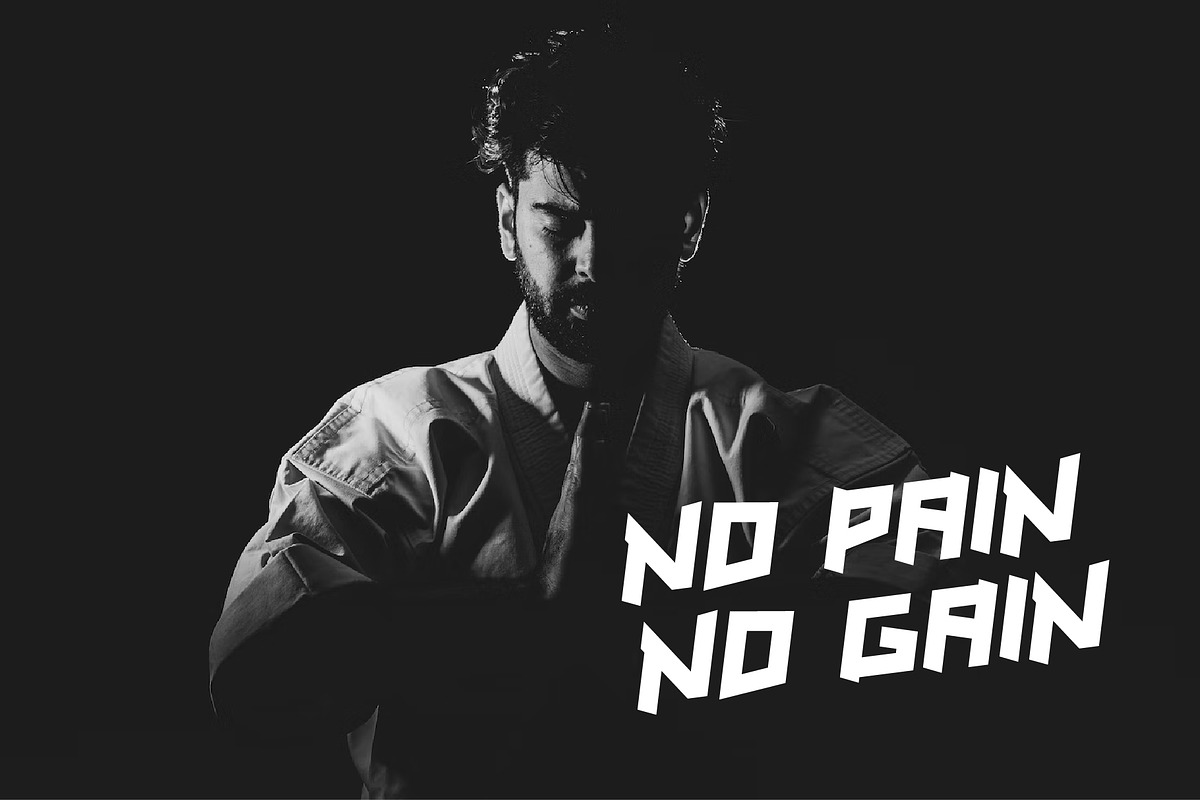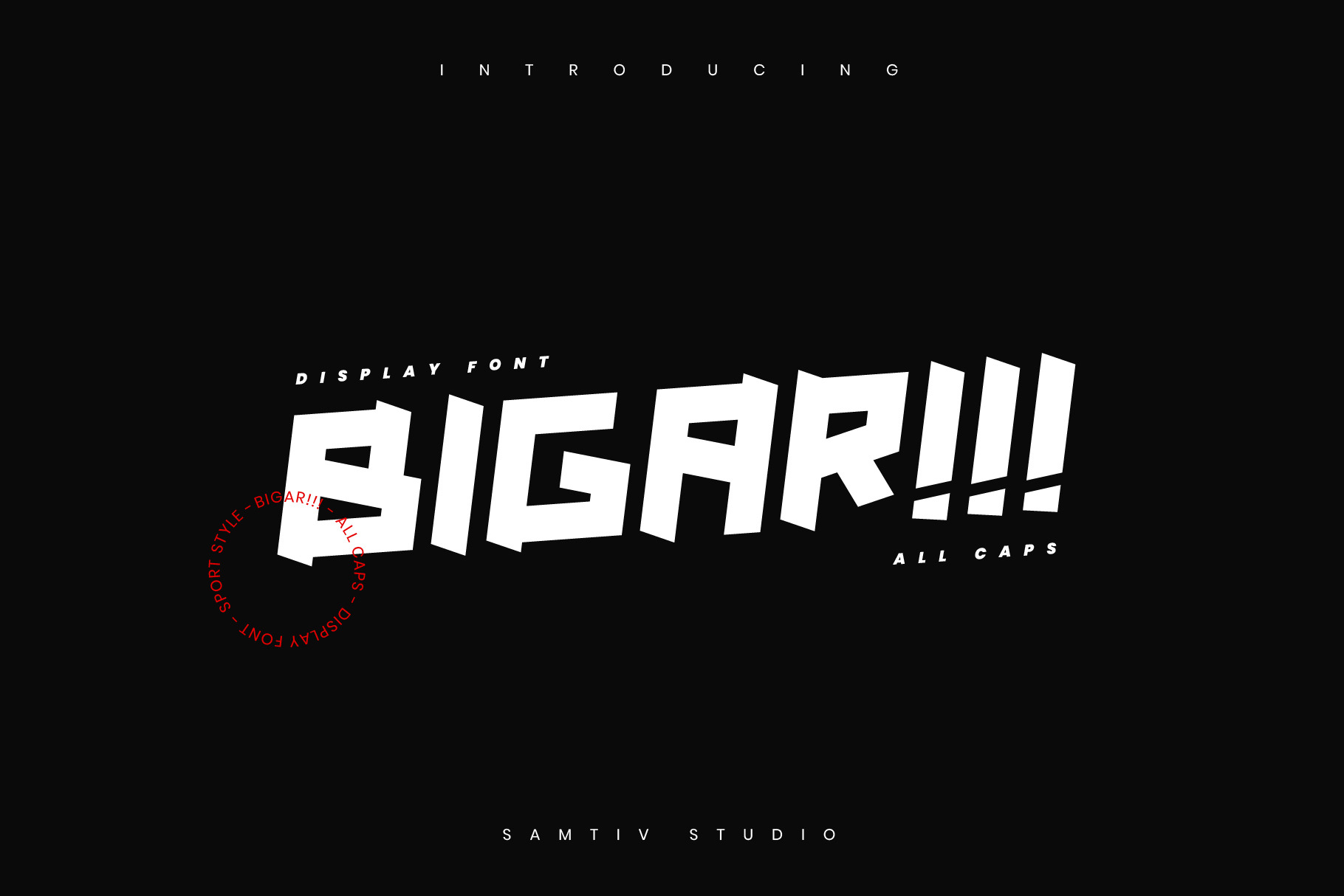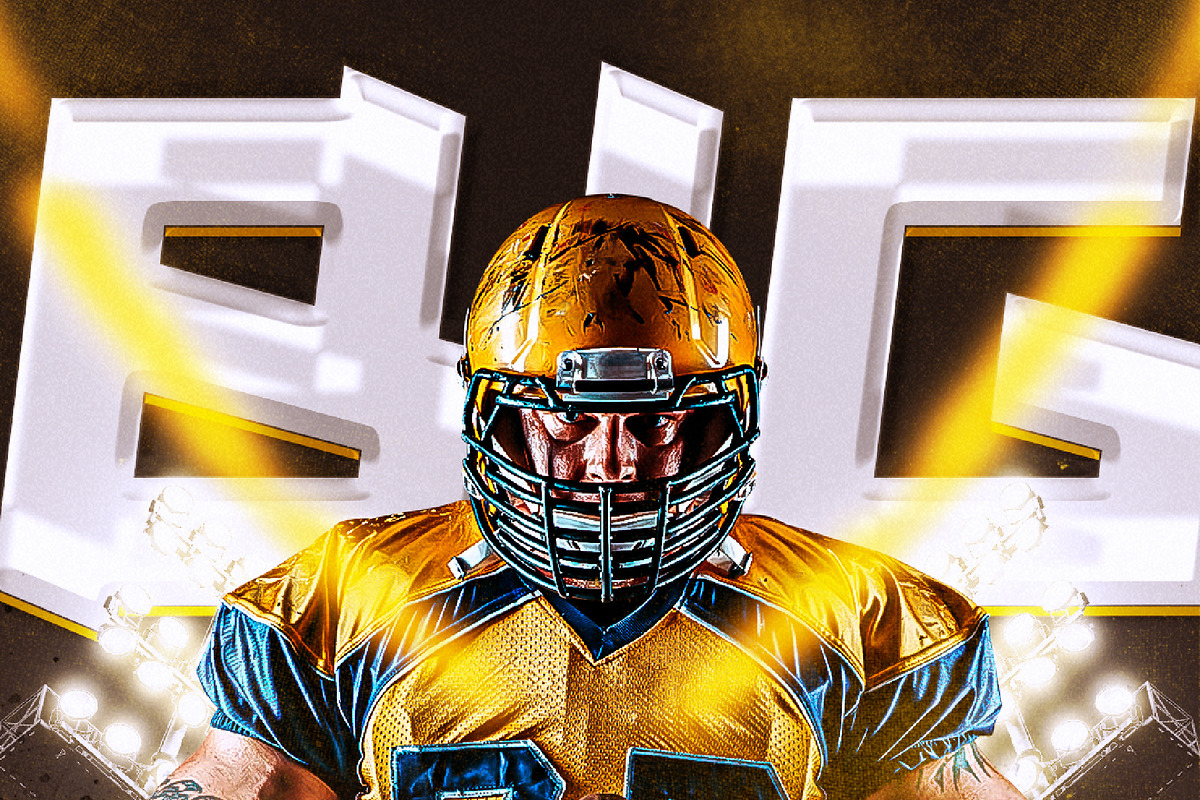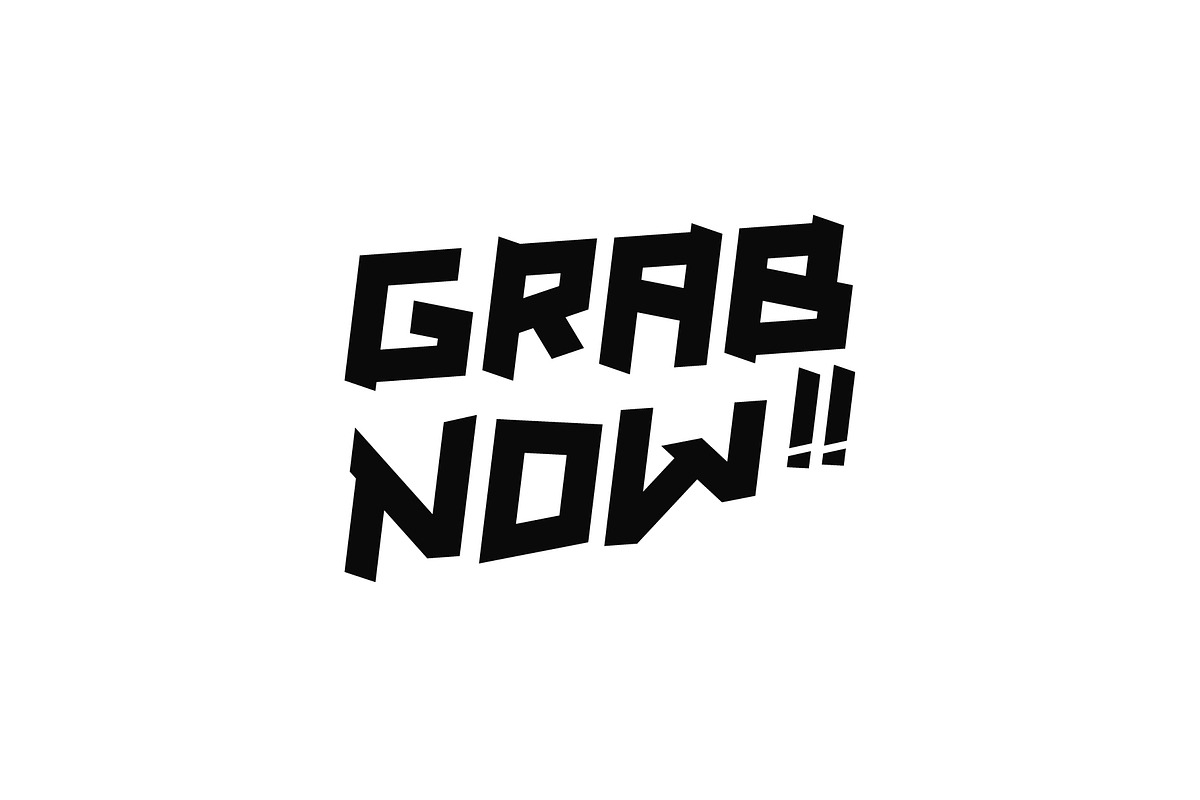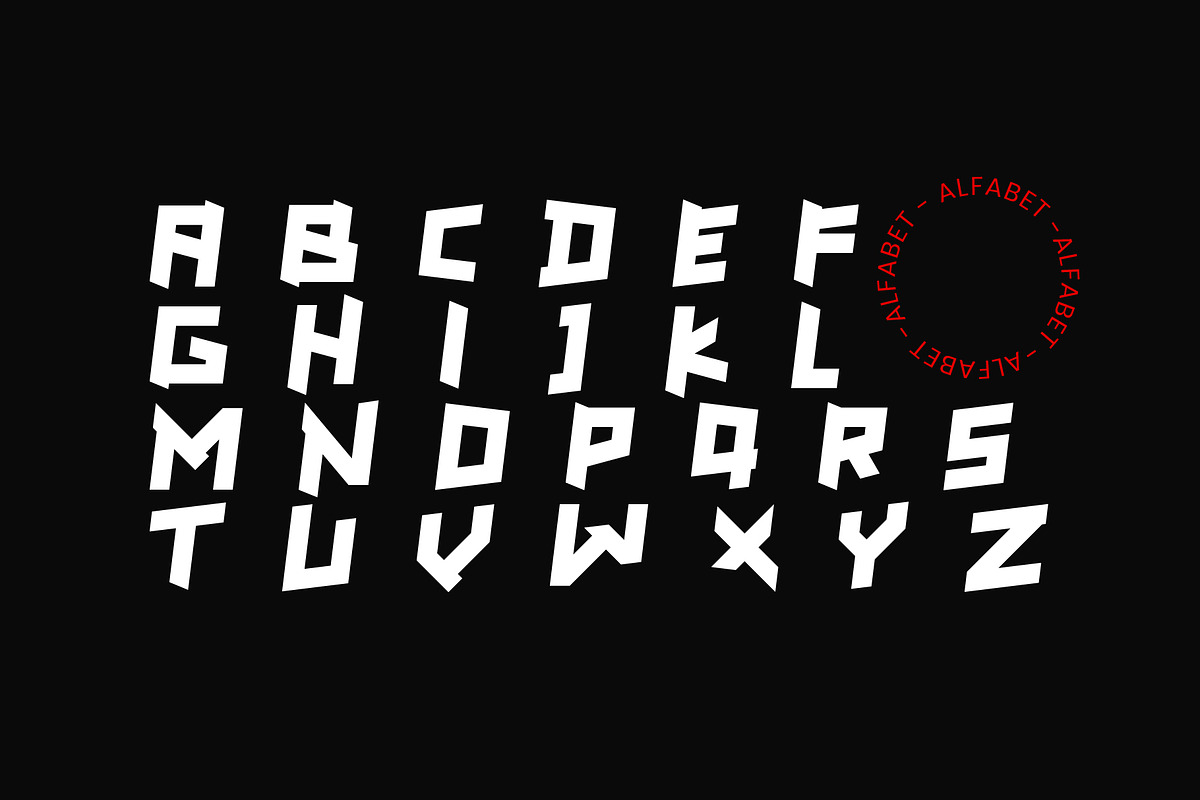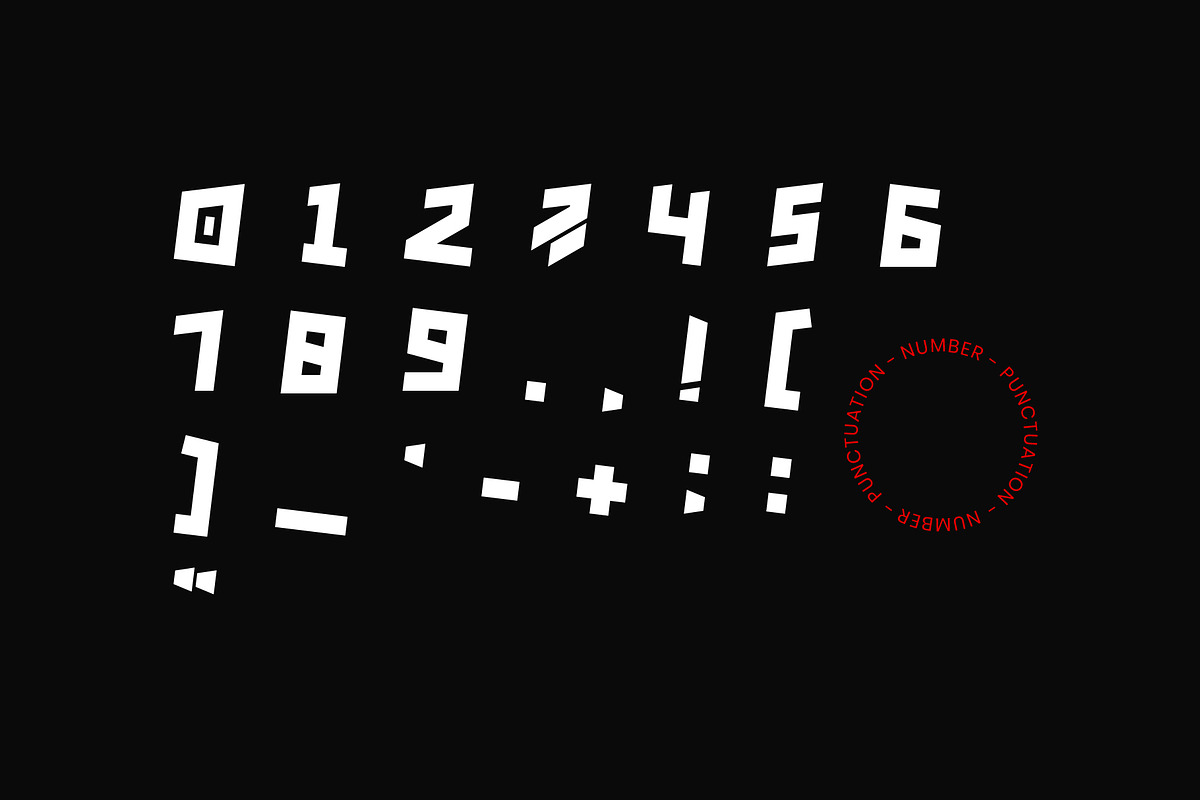
BIGAR!!! - SPORT FONT DISPLAY
BIGAR!!! - Sport Font
BIGAR!!! is an awesome sports font with wide italic fonts, modern cutouts, and a dynamic slant. Ideal for fast car racing sports titles, running matches, cycling, automotive game logos, and monograms or other modern dynamic text. Bigar compare favorably with legibility and size, creating the effect of power and speed. Designed as a fast and dynamic font, but with a slightly different font design, check it out and grab it right away.